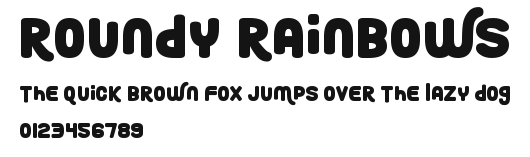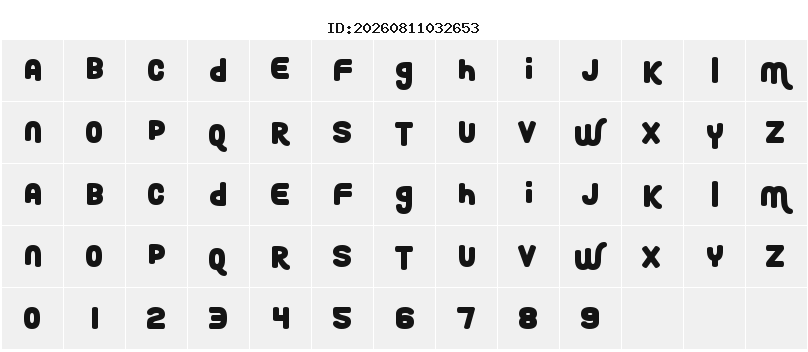
• Font Name: Roundy Rainbows
• Full Font Name: Roundy Rainbows
• Version: Version 1.00 June 11, 2016, initial release
About Roundy Rainbows.otf
Roundy Rainbows.otf is a modern, elegant sans-serif font designed for ultimate readability and visual harmony. Perfect for branding, headlines, web design, and print materials.